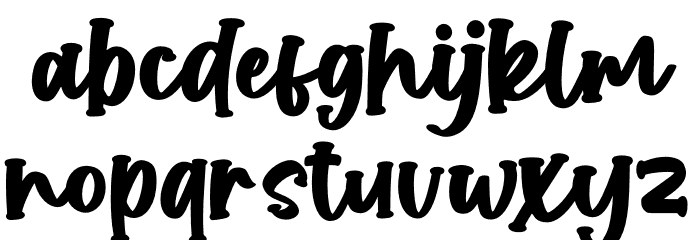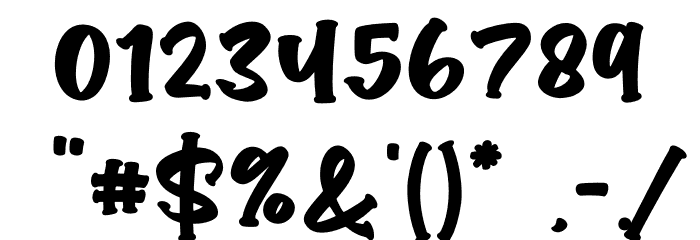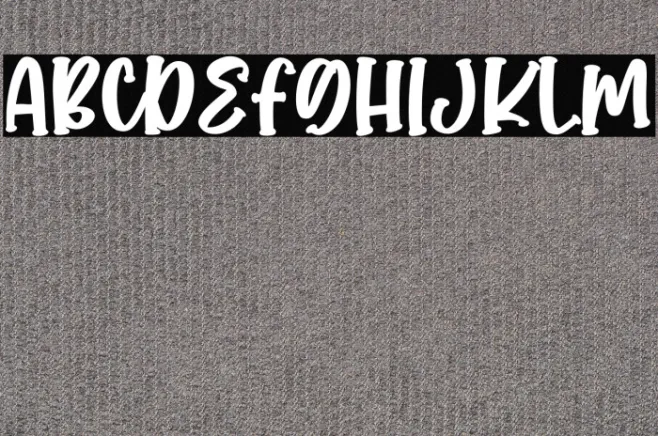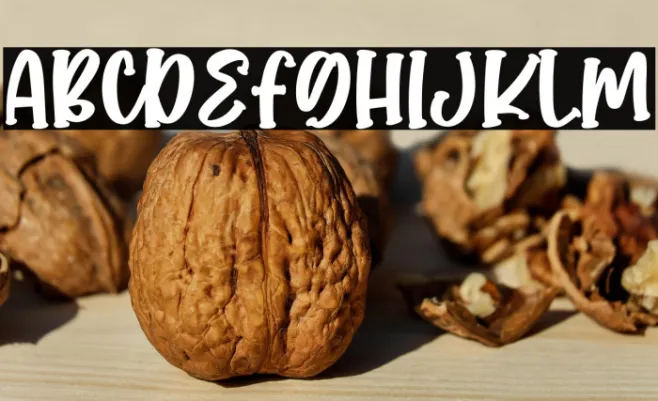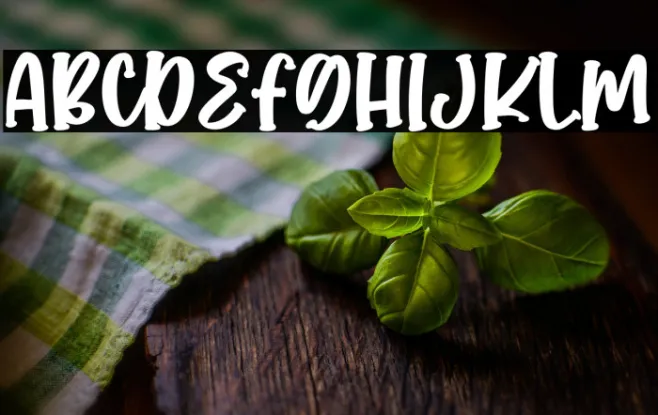
Rocket City Font
This font features a bold and expressive handwritten style, characterized by its thick strokes and playful curves. The letters are slightly slanted, giving a dynamic and energetic feel. The uppercase and lowercase letters maintain a consistent flow, with unique flourishes that add personality to each character. The numbers and special characters are equally bold, ensuring readability while maintaining the font's distinctive style. The overall appearance is casual yet impactful, making it suitable for creative and informal applications.
A bold, expressive handwritten font with playful curves and thick strokes.
- Font: Rocket City
- Proposed Projects: Ideal for branding, posters, social media graphics, and any project requiring a lively and informal touch.